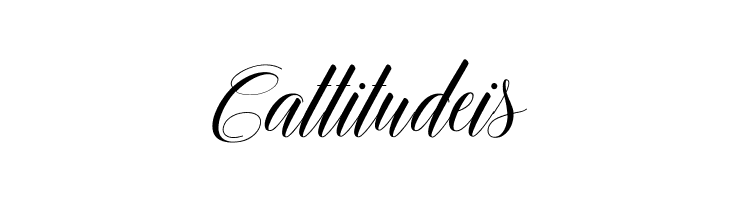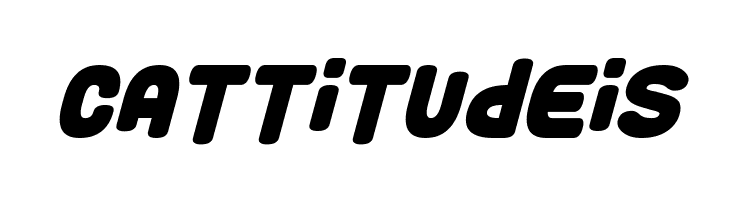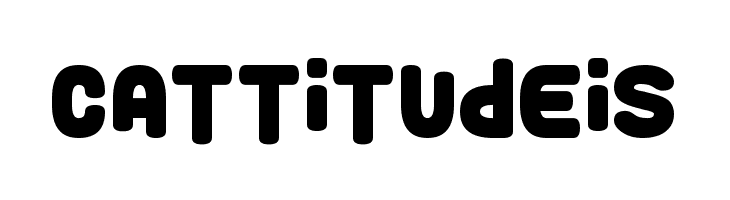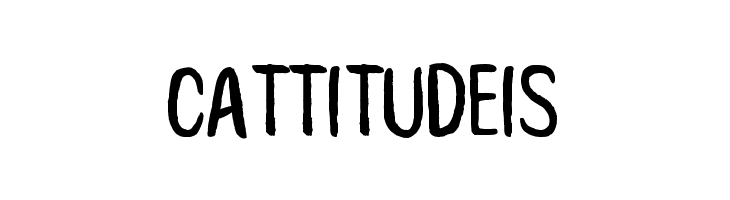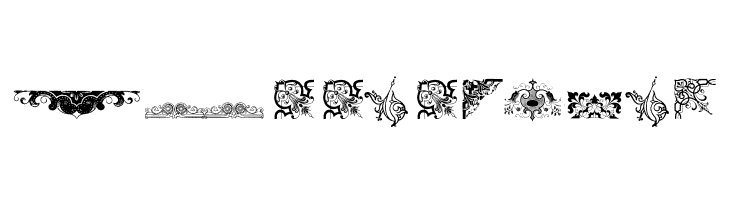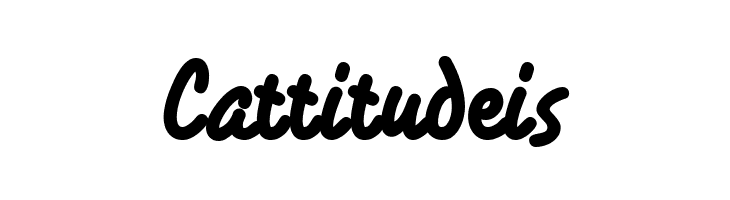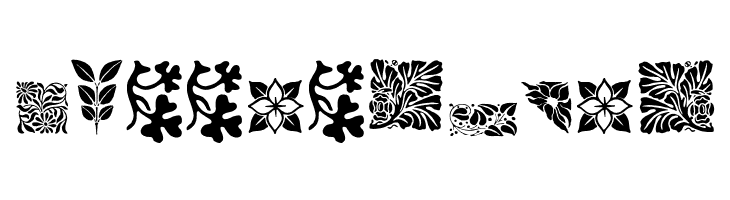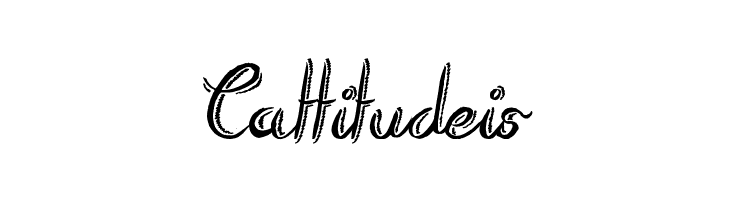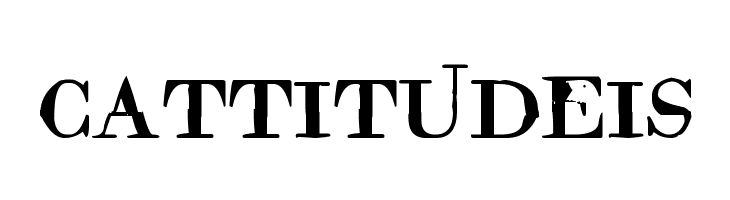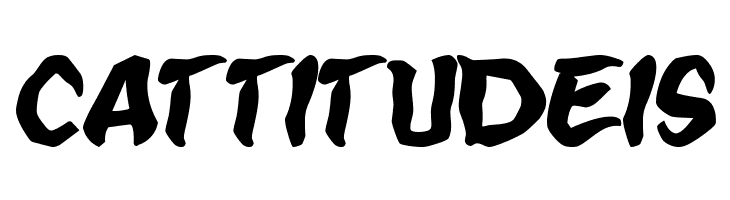
A playful, rounded font with a whimsical and informal style.
A bold, geometric font with a modern and decorative style.
A playful, handwritten font with a whimsical and friendly style.
A bold, playful handwritten font with thick strokes and a casual style.
An elegant script font with intricate swashes and flowing letterforms.
A modern, geometric stencil font with bold lines and rounded edges.
A bold, brush-style font with dynamic strokes and a hand-painted look.
An elegant and flowing script font with graceful curves and loops.
A playful, comic-style font with bold outlines and dynamic, hand-drawn characters.
Ornamental floral dingbat collection with bold, hand-drawn style.
A bold, playful handwritten font with fluid, brush-like strokes.
A playful, bubble-like font with rounded, consistent outlines.
A bold, playful font with a cartoonish, bubble-like style.
A dynamic script font with rough, textured strokes and a handwritten feel.
Highly detailed, vintage ornamental vignette glyphs.
A modern, rounded sans-serif font with a clean and approachable style.
A bold, rounded font with smooth curves and a modern, friendly style.
A modern, rounded font with a friendly and approachable design.
A modern, bold, rounded typeface with a friendly and clear appearance.
A modern, rounded typeface with a clean and friendly appearance.
A modern, rounded font with a clean and approachable design.
A modern, thin, and rounded font with a clean and minimalist design.
A playful, rounded font with a hand-drawn, casual style.
A playful, bold font with rounded edges and a bubbly, friendly appearance.
A playful, rounded font with a bold, bubbly appearance.
A bold, rounded, and italic font with a playful and dynamic style.
A classic serif font with moderate contrast and elegant proportions.
A playful, whimsical script font with interconnected, flowing letters.
A bold, decorative font with a vintage, woodcut-inspired style.
A bold, distressed serif font with a rugged, grunge-like appearance.